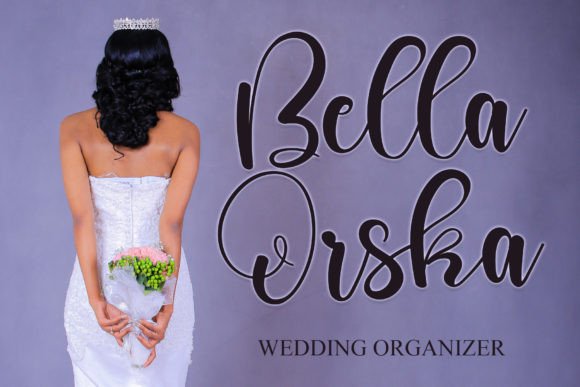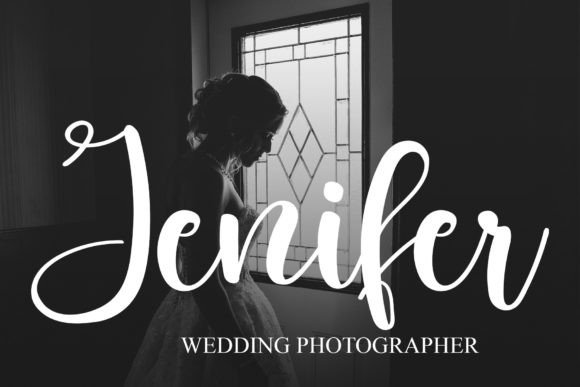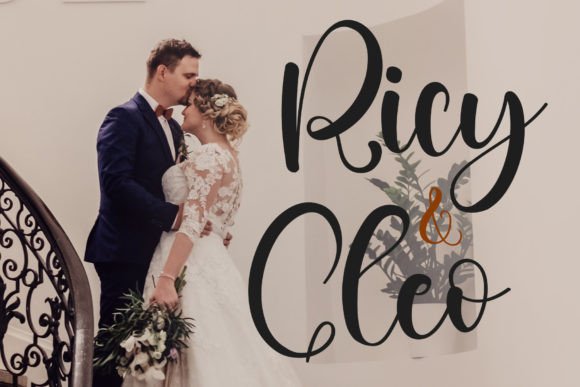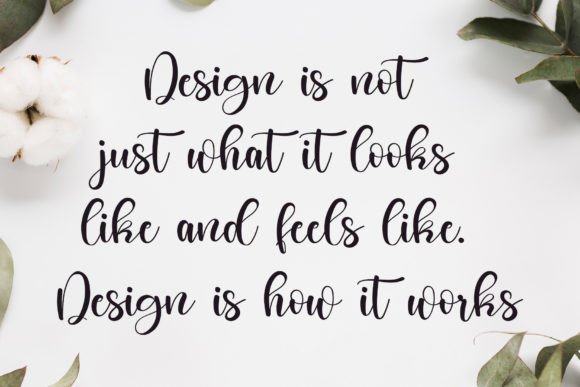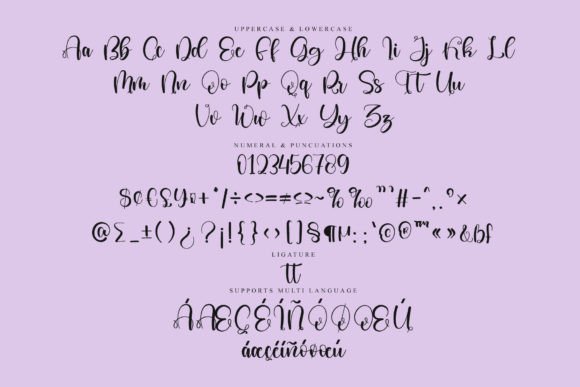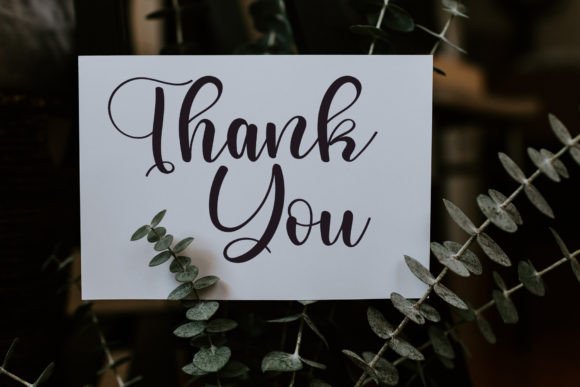
I’ll never forget the project that led me to Gather Font. I was working on a branding project for a wedding planner, and I needed a font that would capture the essence of romance and whimsy. I spent hours scouring the internet, trying out font after font, but nothing seemed quite right. That was until I stumbled upon Gather. It was like the font was made for my project – elegant, dainty, and full of character.
What I Love About Gather ✨
- ✨ Elegant and refined, perfect for projects that need a touch of sophistication
- 💕 Beautifully crafted with a romantic feel
- 🎨 Versatile and can be used for a wide range of projects, from logos to watermarks
- ⚠️ Limited availability of bold or heavy weights, which may limit its use for certain projects
- 🤔 Some users may find the font a bit too ornate or delicate for very bold designs
- Experiment with OpenType features, such as ligatures and stylistic alternates, to add more flair to your design
Gather Font was designed with the intention of creating a beautiful, elegant script font that would capture the essence of romance and whimsy. The designer, inspired by classic calligraphy and handwriting, crafted Gather to be a versatile and refined font that would suit a wide range of projects.
Q: What type of projects is Gather suitable for?
A: Gather is suitable for a wide range of projects, including logos, branding projects, labels, photography, watermarks, special events, and more.
Q: Is Gather a difficult font to read?
A: No, Gather is highly legible, even at small sizes, making it perfect for projects that require a clear and elegant font.